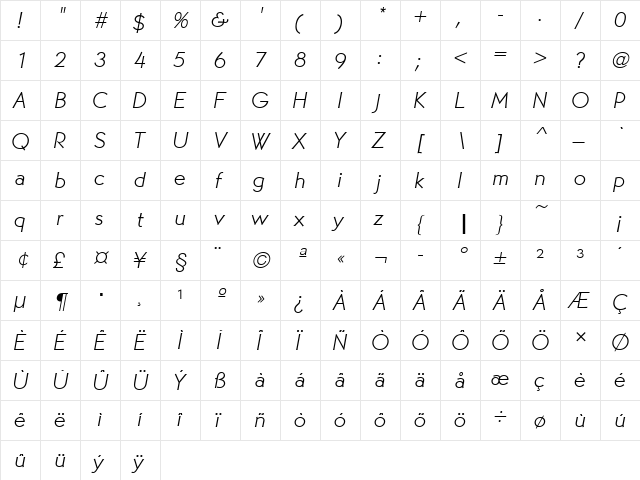
MartinGotURWTLig Italic
Design Context for MartinGotURWTLig Typeface
MartinGotURWTLig offers clean, dependable letterforms without strong stylistic allegiance, making it a practical choice for designers who need flexibility. Its italic angle brings a sense of urgency and motion to the letterforms.